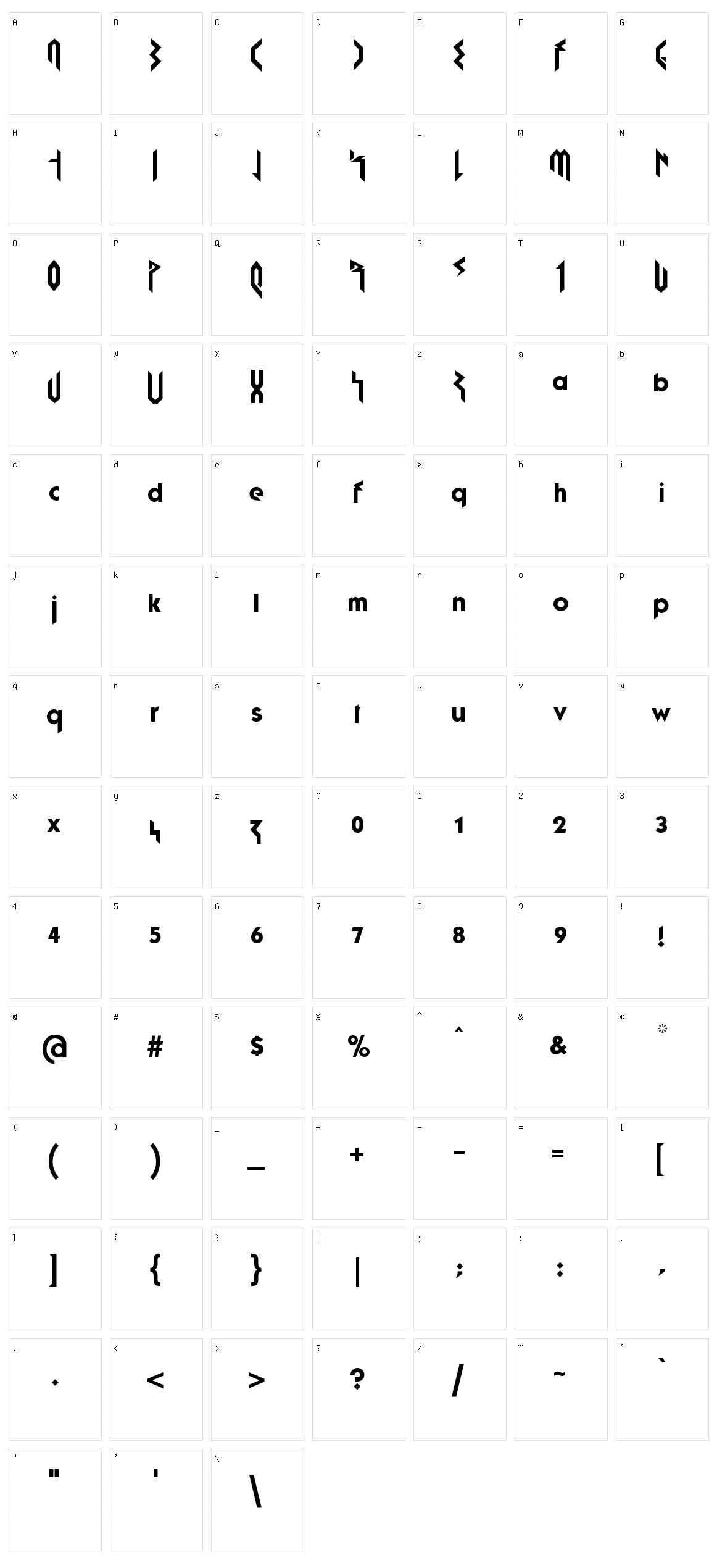
Greetings font fans. Back is an old classic that's gotten a facelift after 14 years. Previous released as a demo Fujita Ray now includes a full character set, new glyphs, Eastern European
characters, kerning, and an uppercase facelift. It's not advisable to type in all caps as many of the uppercase members are difficult to read on their own.